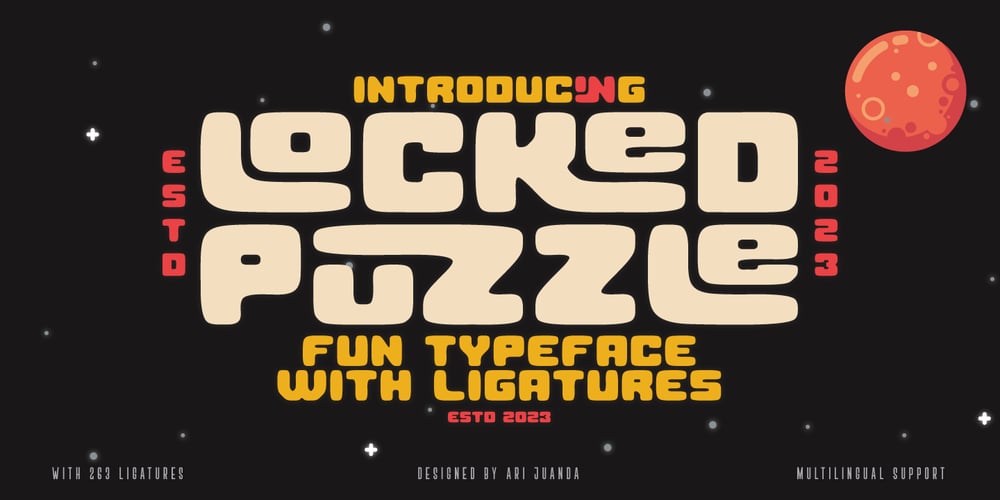
Locked Puzzle Font Family was designed by Ari Juanda and published by Linecreative. Locked Puzzle contains 1 styles and family package options. Introducing “Locked Puzzle,” a captivating and bold font designed to elevate your creative endeavors with a playful twist. This unique typeface defies the conventional sharp angles, opting instead for a smooth and curvaceous form that seamlessly interlocks, embodying the essence of a puzzle waiting to be solved.Locked Puzzle’s characters are imbued with a sense of whimsy and charm, making it a perfect choice for titles, posters, murals, and various works of art that demand attention. The absence of corners in this font contributes to its fluidity and friendly demeanor, creating a visual experience that is both engaging and approachable.What sets Locked Puzzle apart is its ingenious interlocking ligatures. These ligatures provide a dynamic and cohesive flow between letters, adding an element of surprise and coherence to your text. Whether used in digital or print media, PuzzleLock transforms ordinary words into visual puzzles, sparking curiosity and leaving a lasting impression on your audience.**Uppercase